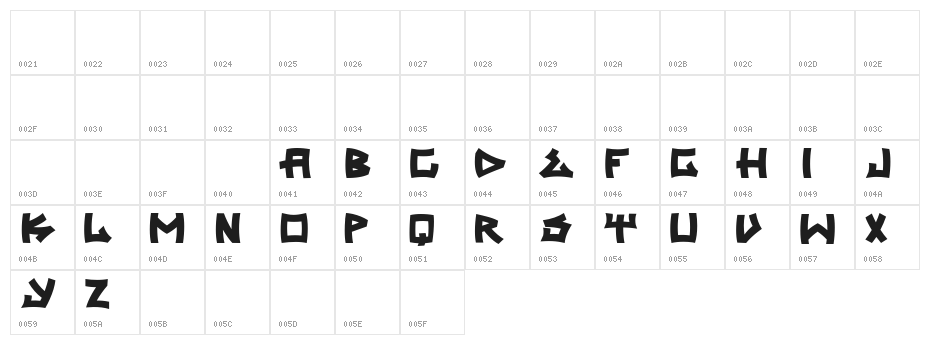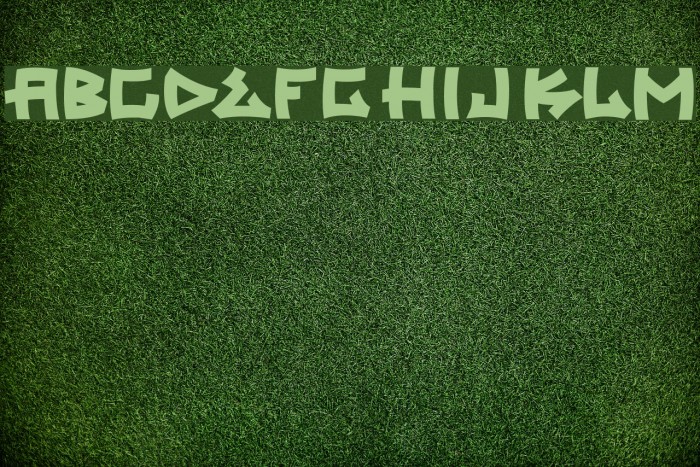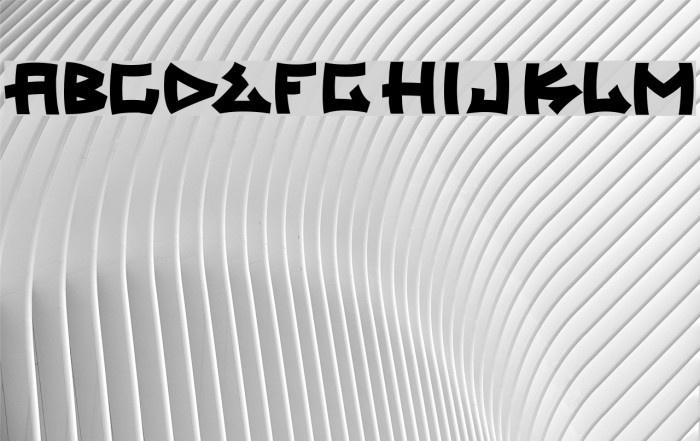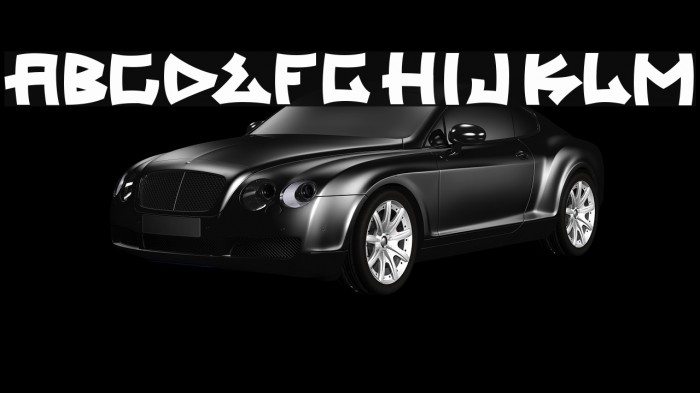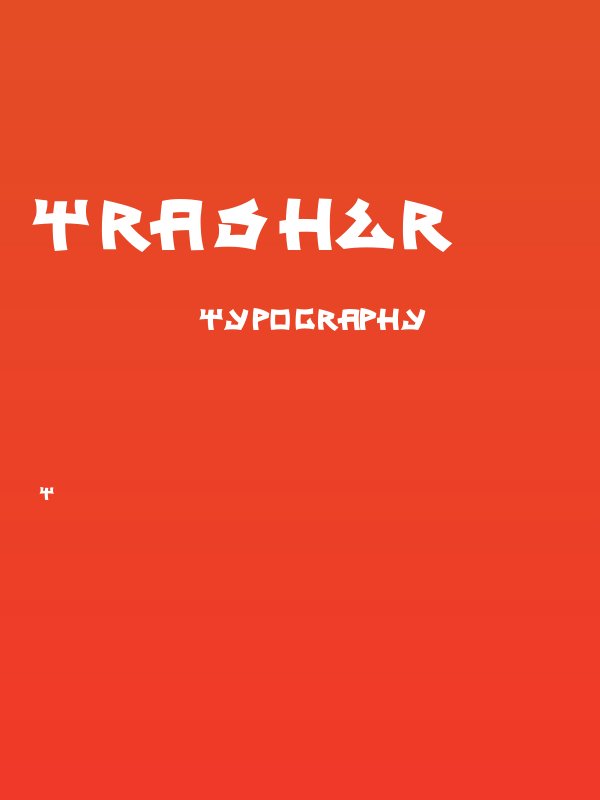
trasher 2 Font
trasher 2 Description
This font features a bold and edgy design with a graffiti-inspired aesthetic. The uppercase letters are characterized by sharp angles and dynamic shapes, giving them a rebellious and urban feel. The strokes are thick and consistent, providing a strong visual impact. The overall appearance is bold and attention-grabbing, making it suitable for projects that require a modern and unconventional look. The font's unique style is perfect for creative designs that aim to stand out and make a statement.
| Proposed Projects | Ideal for street art, urban-themed posters, edgy branding, and music album covers. |